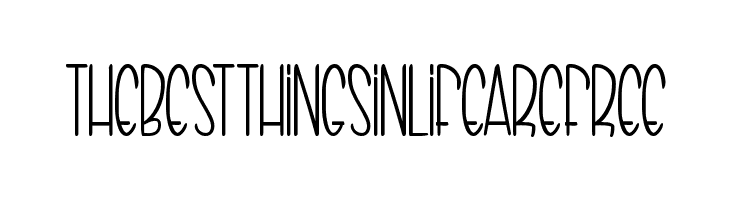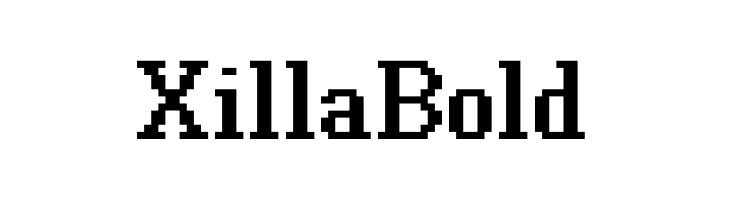
A bold, pixelated font with a retro digital style.
A bold, brush-style font with an energetic and rebellious vibe.
A modern, sleek font with tall, narrow characters and a clean, structured appearance.
A bold, playful font with a leftward slant and rounded characters.
A cursive, handwritten-style font with flowing, interconnected characters.
A bold, graffiti-inspired font with a dynamic and playful style.
An elegant script font with flowing cursive lines and decorative flourishes.